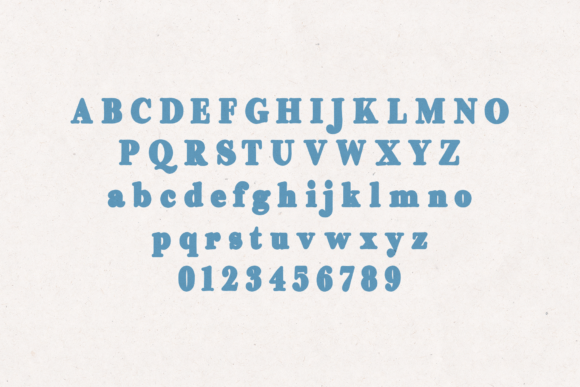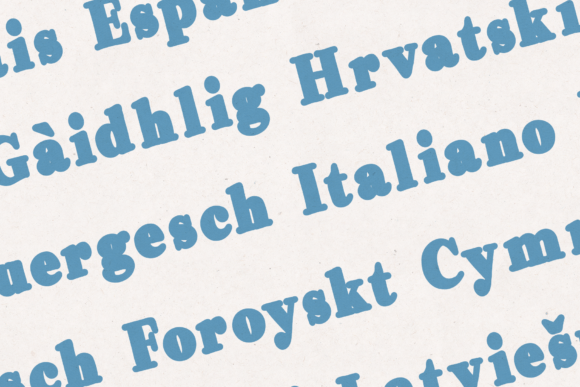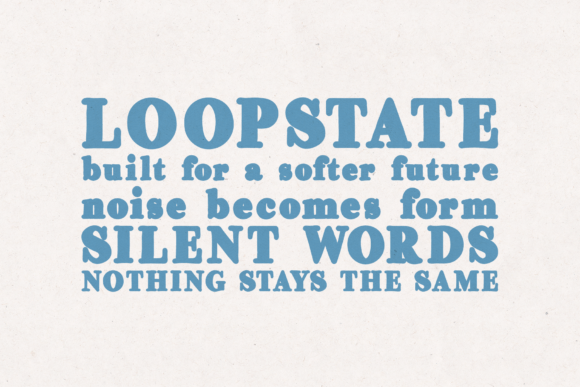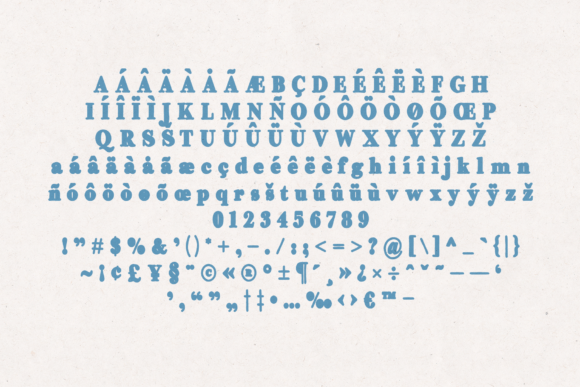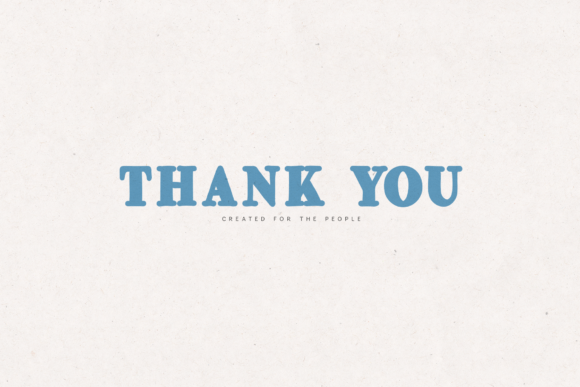
Introduction to Preta Blackout Font
Have you ever stared at a blank canvas, trying to conjure up the perfect design for your next creative project? The blank page can be intimidating, but what if you had a design resource that could give your project the bold statement it needs? Enter the Preta Blackout Font, a stunning retro serif that’s sure to make your design stand out. With its soft-edged, rounded slab-inspired forms, this font is perfect for designers who want to add a touch of vintage warmth to their work.
The Preta Blackout Font is a free download that’s available for designers who want to take their creative projects to the next level. With its high-quality design and transparent background, this font is perfect for branding, packaging, editorial design, and more. Whether you’re working on a logo, social media graphics, or merchandise, the Preta Blackout Font is an ideal choice for designers who want to make a bold statement.
- Features a bold and modern aesthetic, making it ideal for use in headings, titles, and other prominent design elements.
Honest Review: Preta Blackout Font
I recently had the opportunity to try out the Preta Blackout Font for a creative project, and I must say it’s been a game-changer. As a designer, I’m always on the lookout for high-quality design resources that can help me take my work to the next level.
Here’s what works well:
- ✨ High-quality glyphs: The Preta Blackout Font features beautiful, detailed glyphs that make it perfect for use in creative projects where a clean and modern aesthetic is required.
- ✨ Transparent background: The font’s transparent background makes it easy to use on a variety of backgrounds, from bright and colorful to dark and moody.
While the Preta Blackout Font is a great choice for many projects, there are a few limitations to keep in mind:
- ⚠️ Limited character set: The font’s character set is not as extensive as some other fonts on the market, which may make it less suitable for projects that require a wide range of characters.
- ⚠️ Not ideal for body text: Due to its modern aesthetic, the Preta Blackout Font is not the best choice for use as body text, as it can be difficult to read in large quantities.
Overall, I’m impressed with the Preta Blackout Font and would definitely recommend it for designers looking for a high-quality, creative font for their next project.
Use the Preta Blackout Font in combination with other design elements to create a unique and eye-catching design. Experiment with different font sizes, colors, and styles to achieve the desired effect.
The Preta Blackout Font is ideal for creating custom logos, graphics, and designs for various projects, including social media graphics, presentations, and marketing materials.